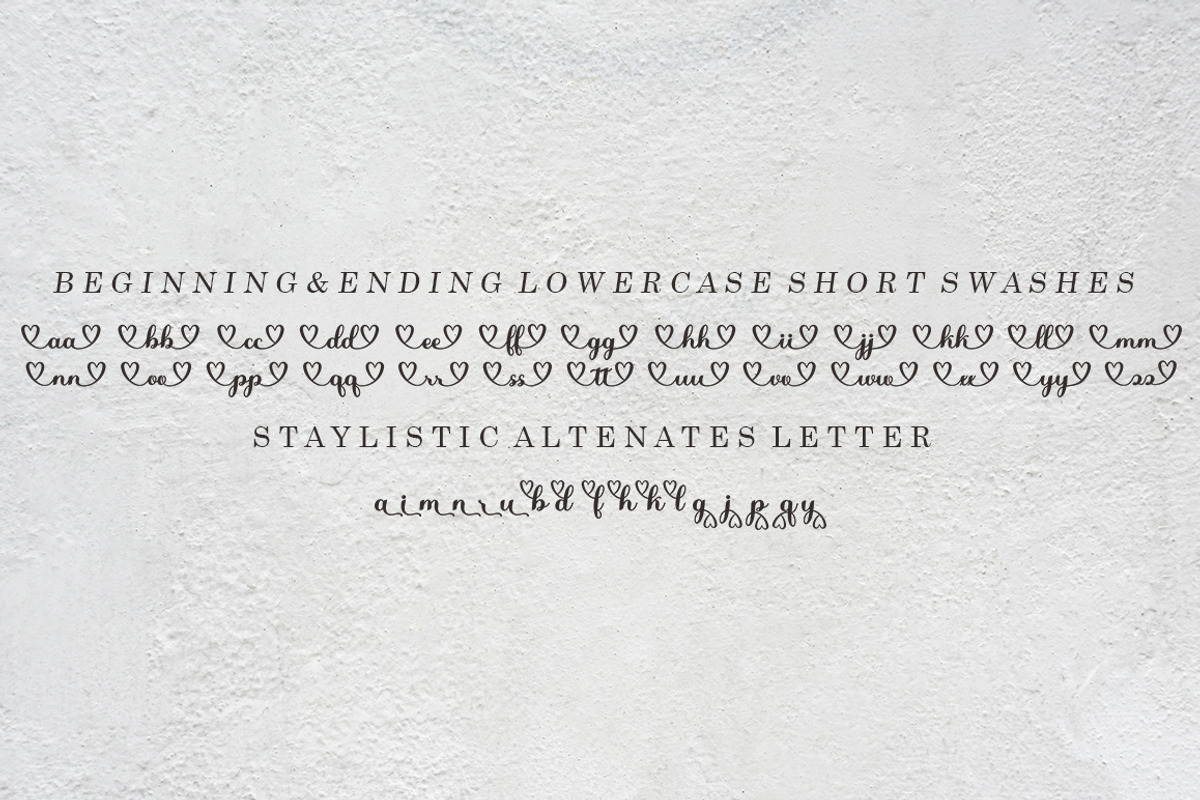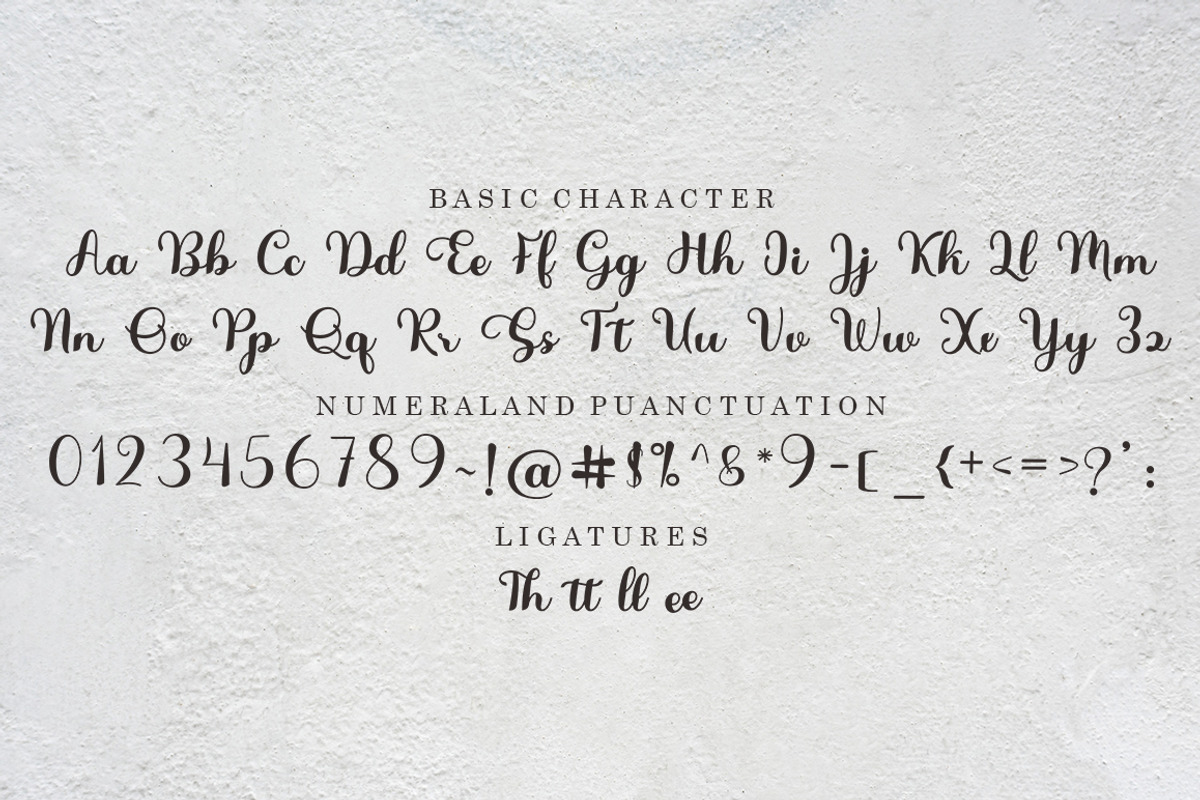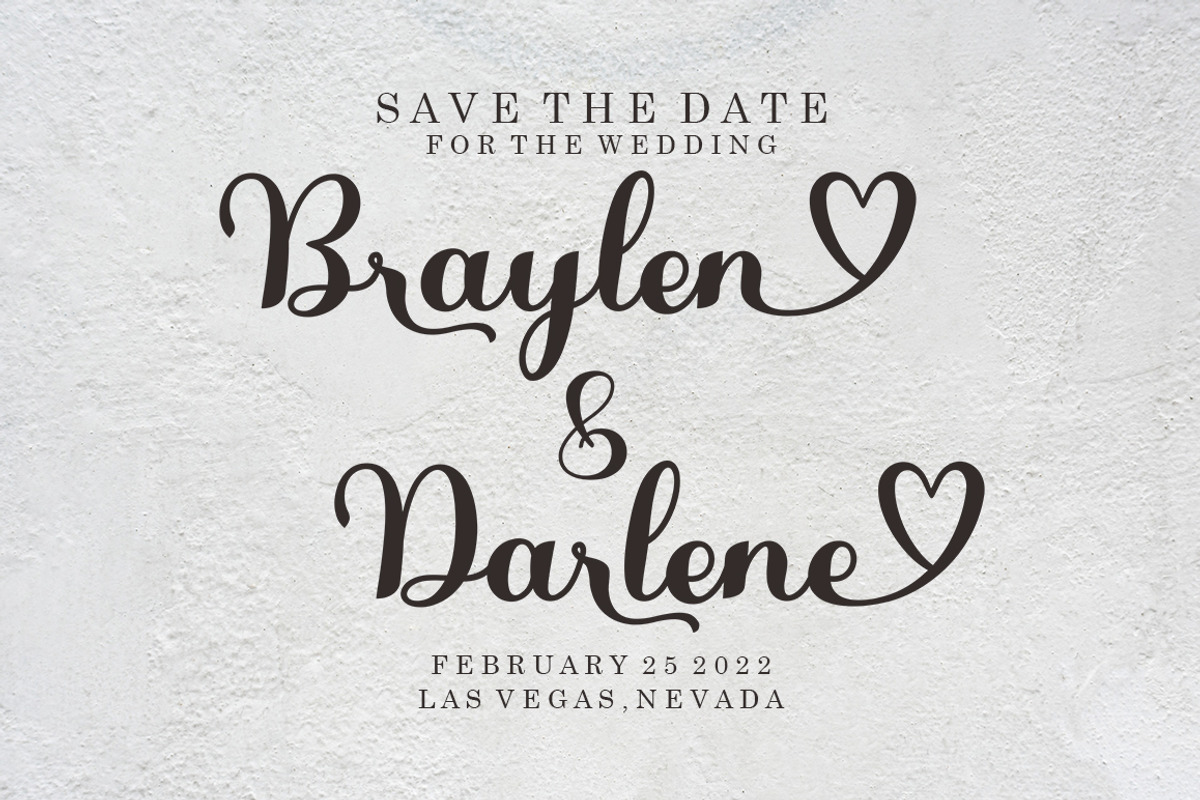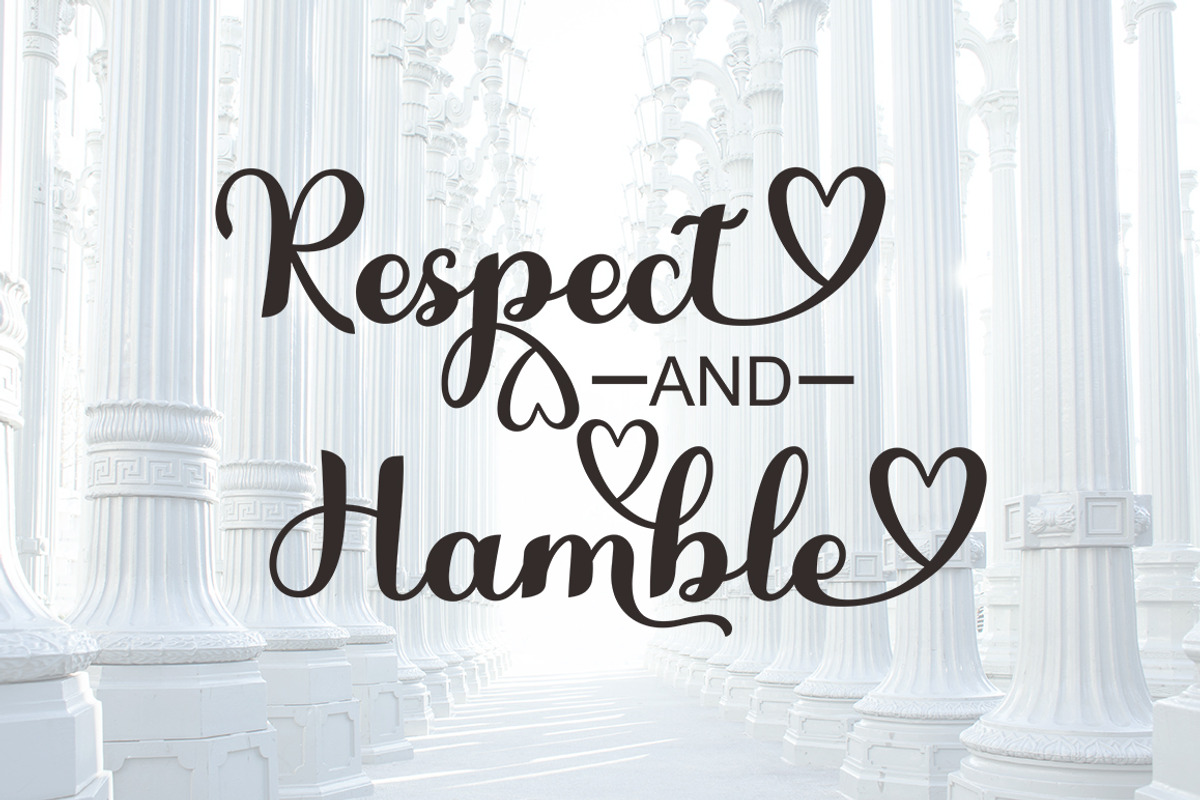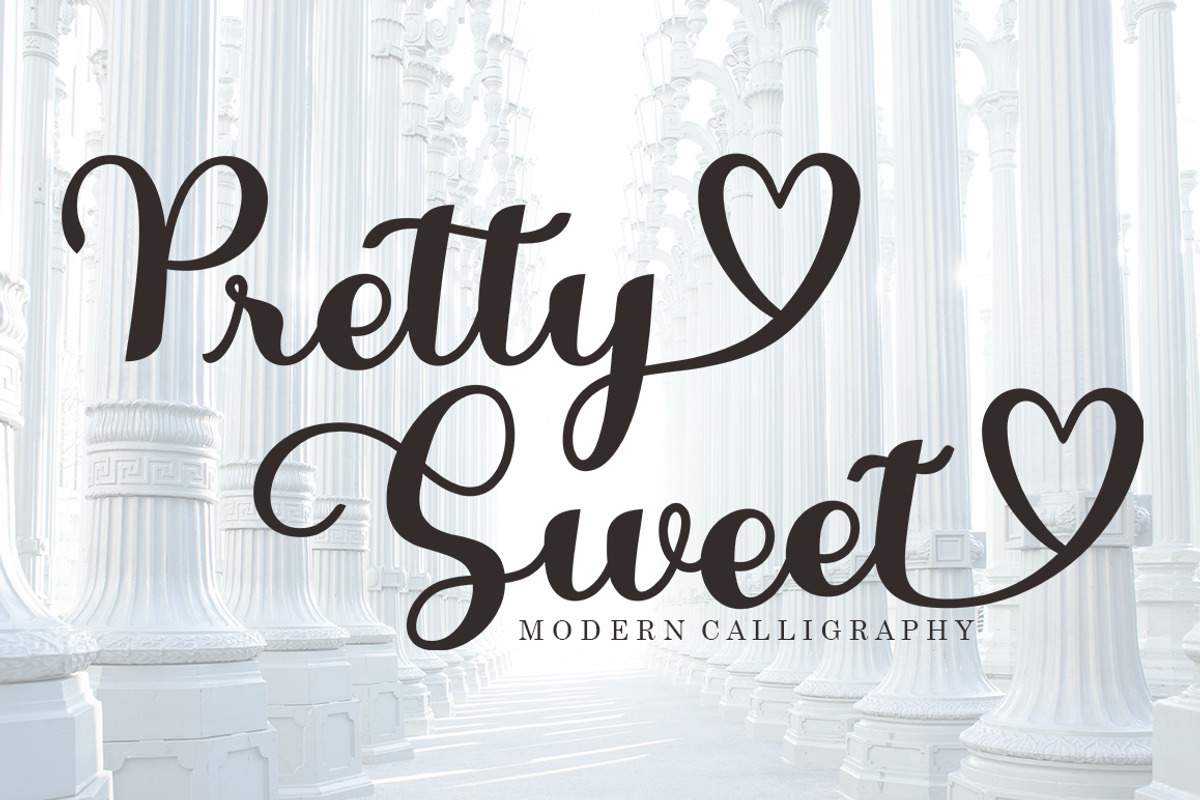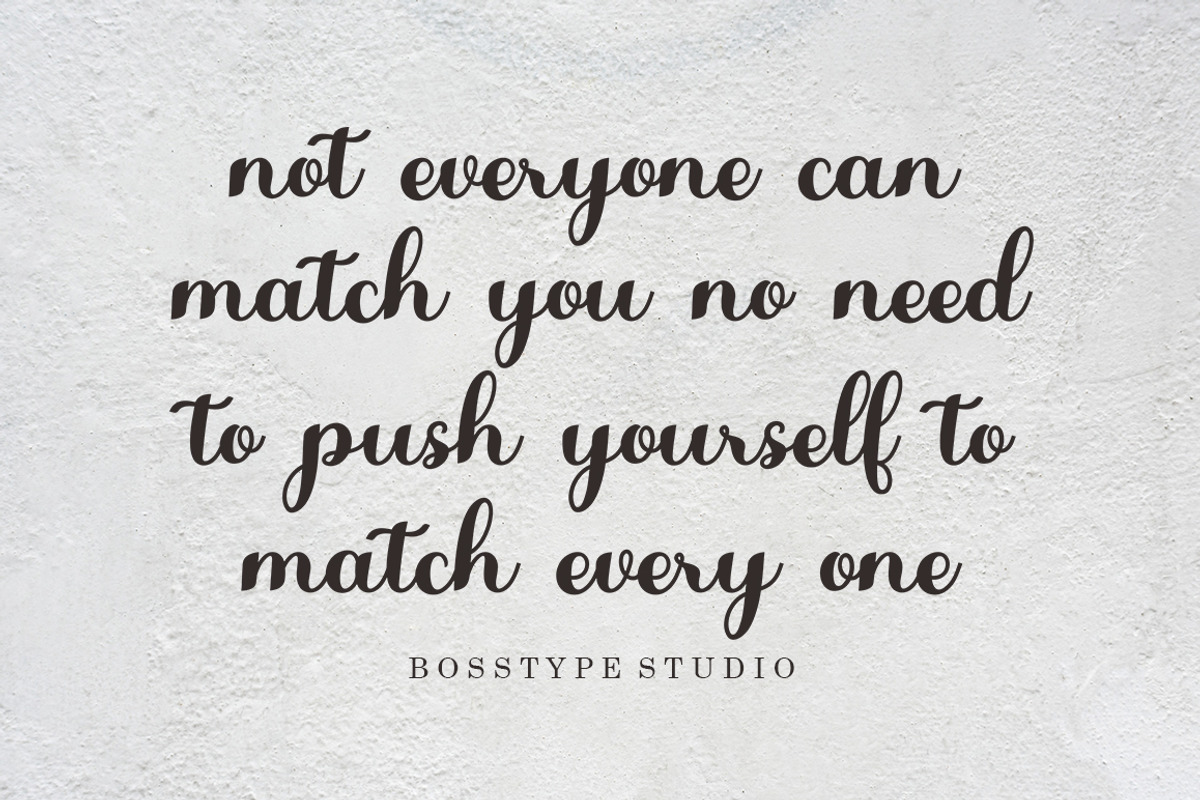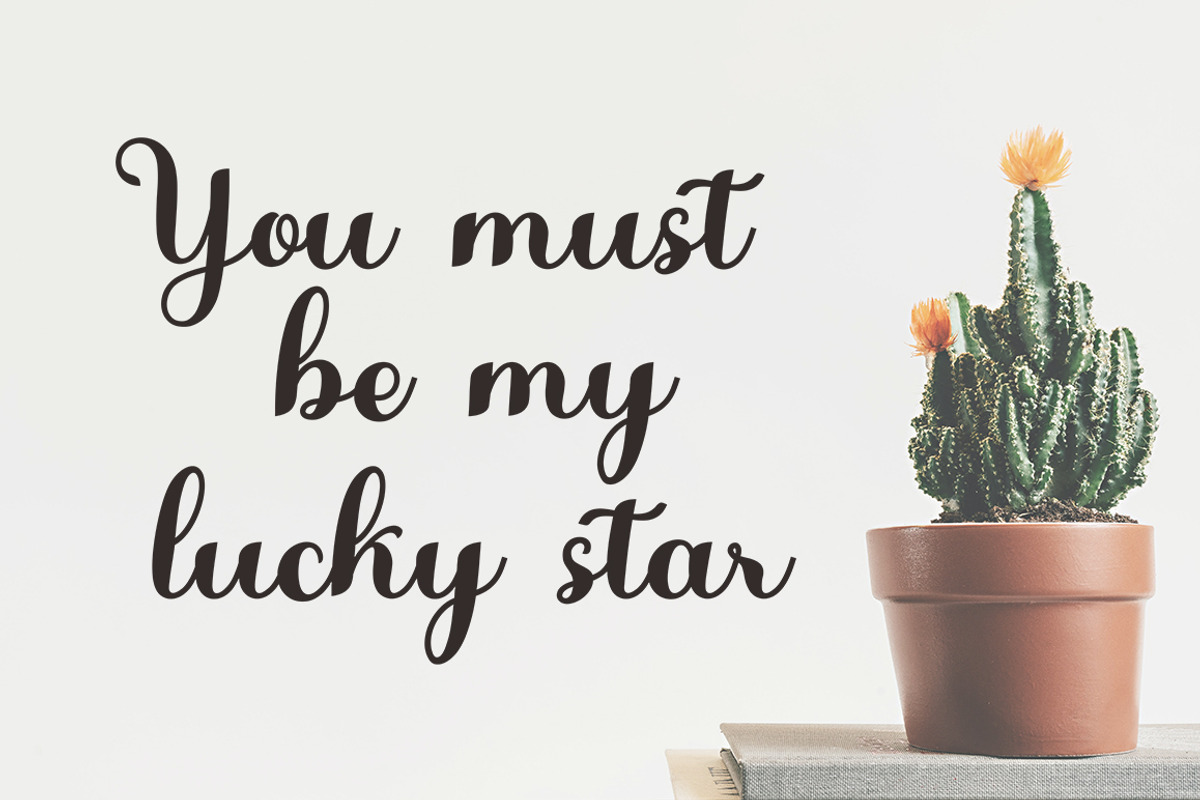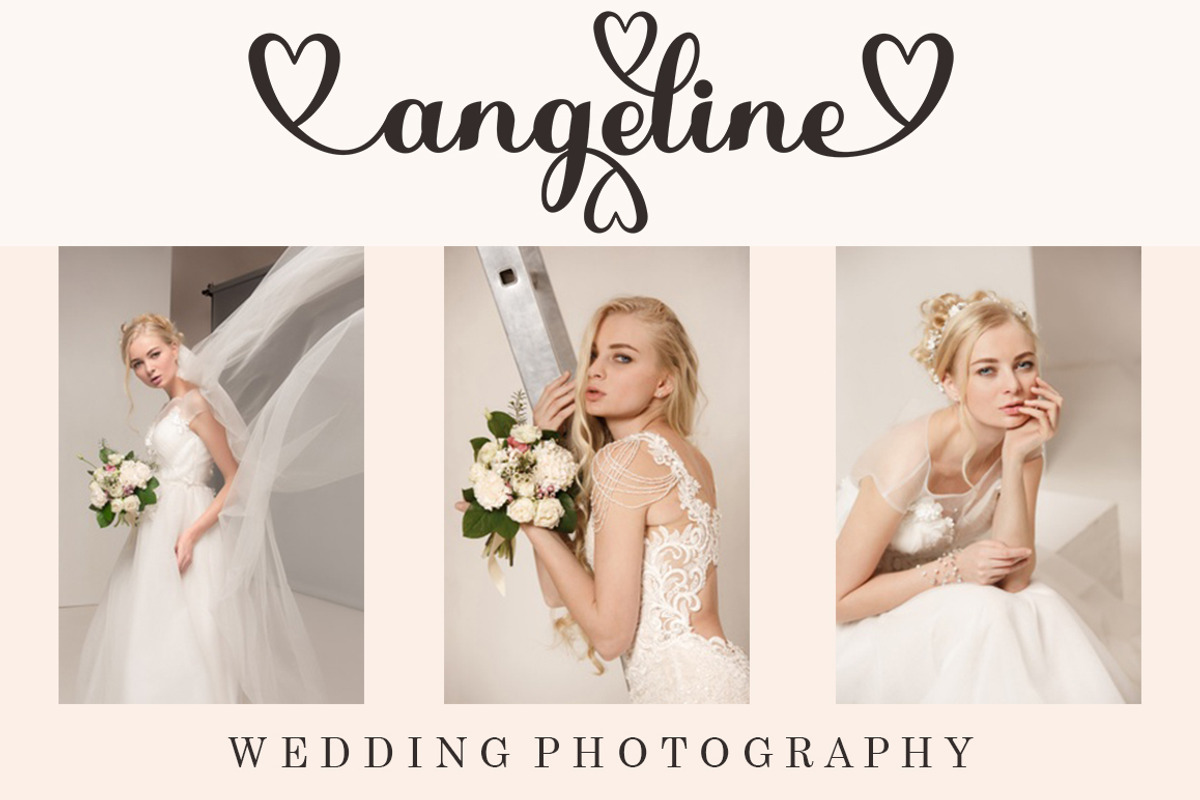
Pretty Sweet Script
Introducing
Pretty Sweet in a beautiful handwritten style. Equipped with 300 glyphs Pretty Sweet is perfect for branding projects, home appliance design, product packaging, use in business cards, invitation cards, etc. Simply as a stylish text overlay onto a background image or anything that requires a touch of elegance.